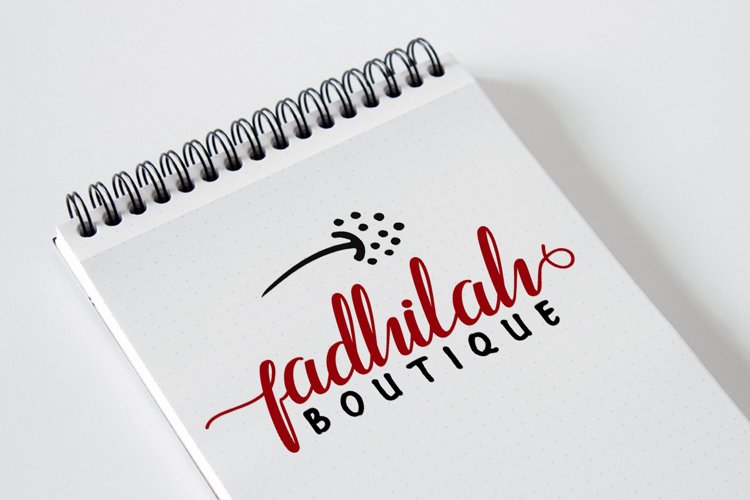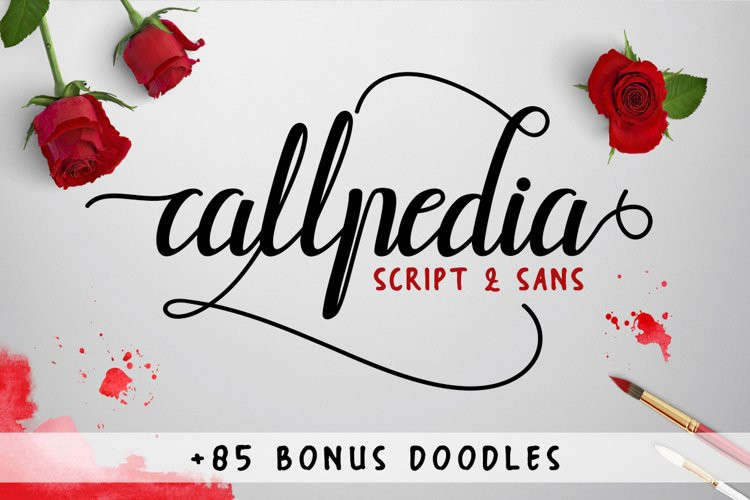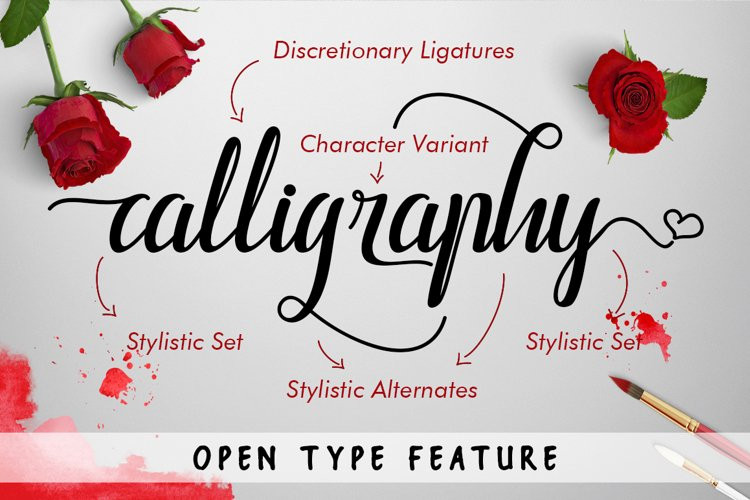
Callpedia Font
Callpedia is a handwriting font with two styles to get perfect lettering and typography design project. These font come with 949 Glyph Script and 202 Glyph Sans to make some variety for your need.
Suitable for various purpose such as digital lettering, headings, logos, wedding invitation, t-shirt, letterhead, signage, lable, news, posters, badges, branding materials, t-shirt, print, business cards, quotes, logo, poster, and suitable for any graphic design.project